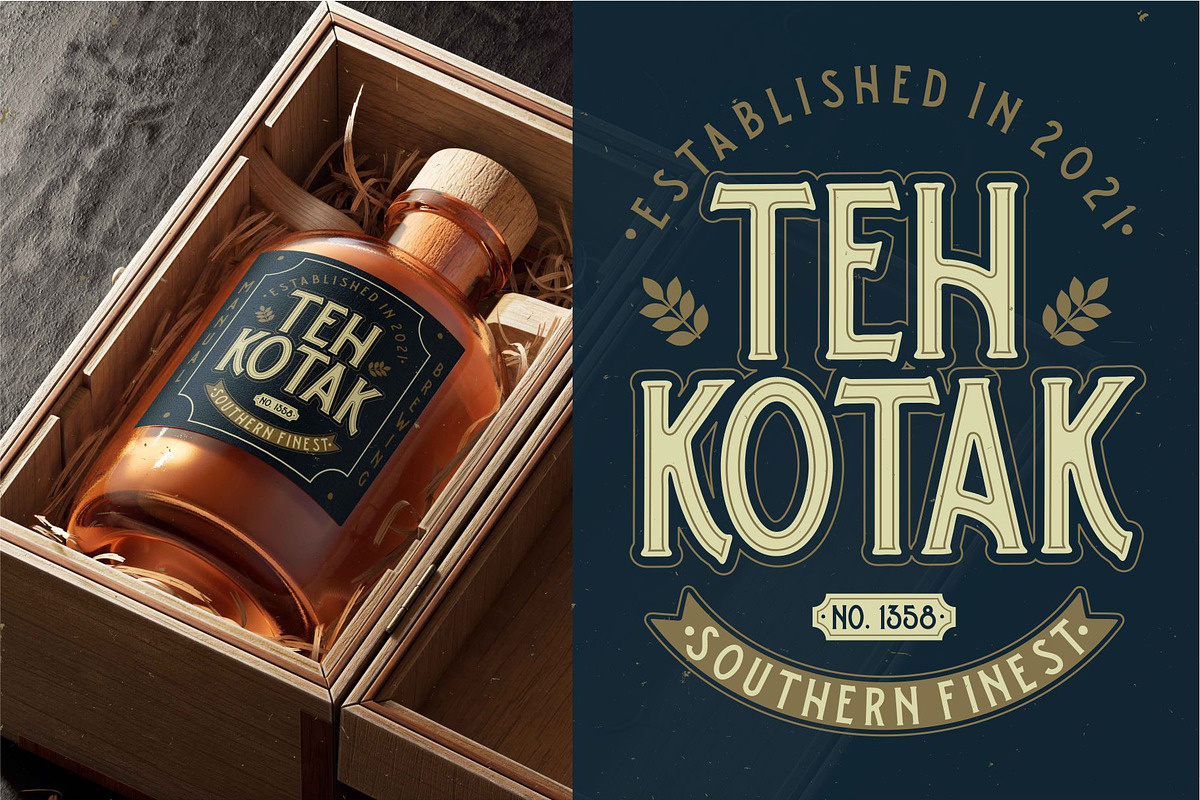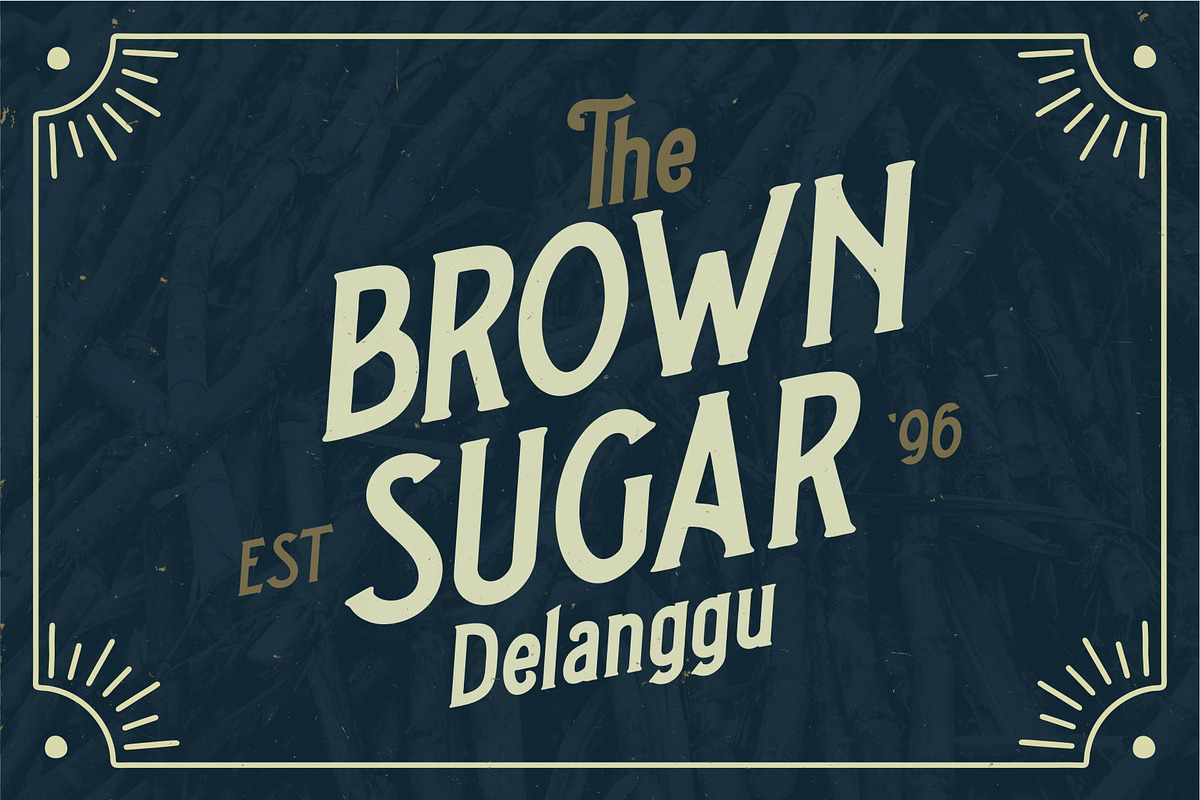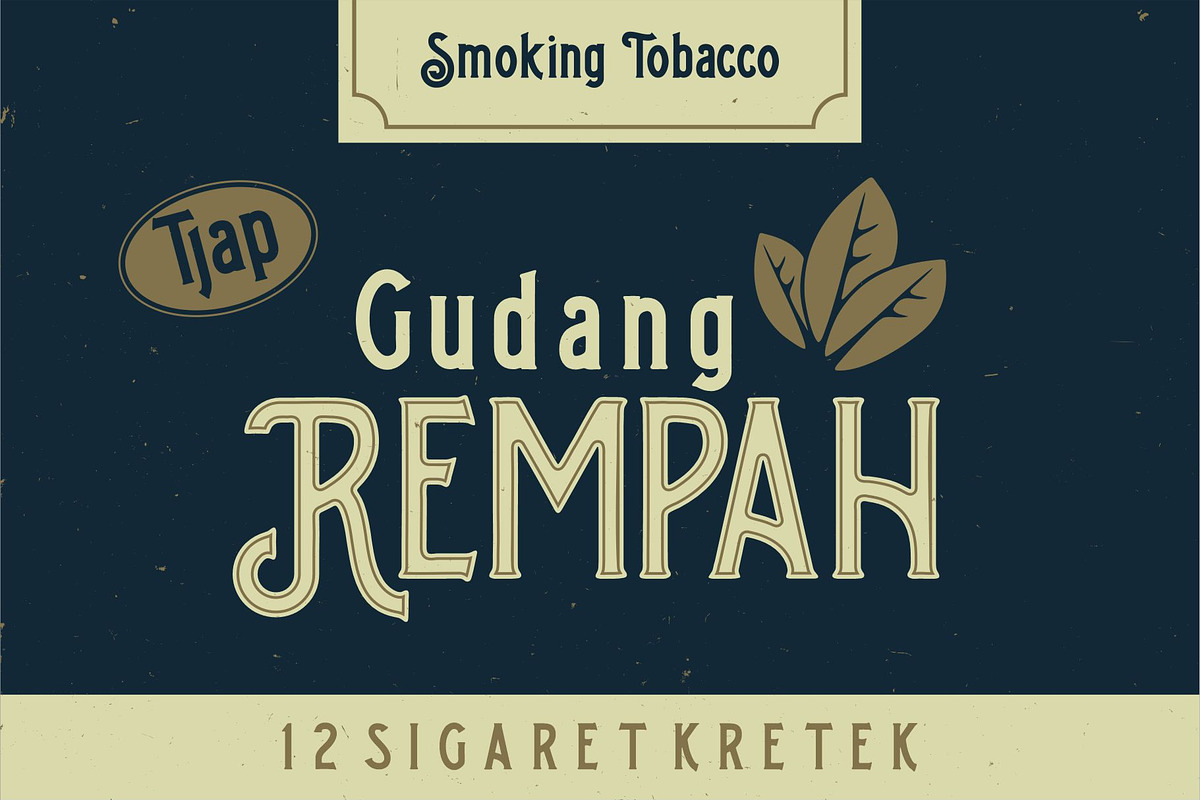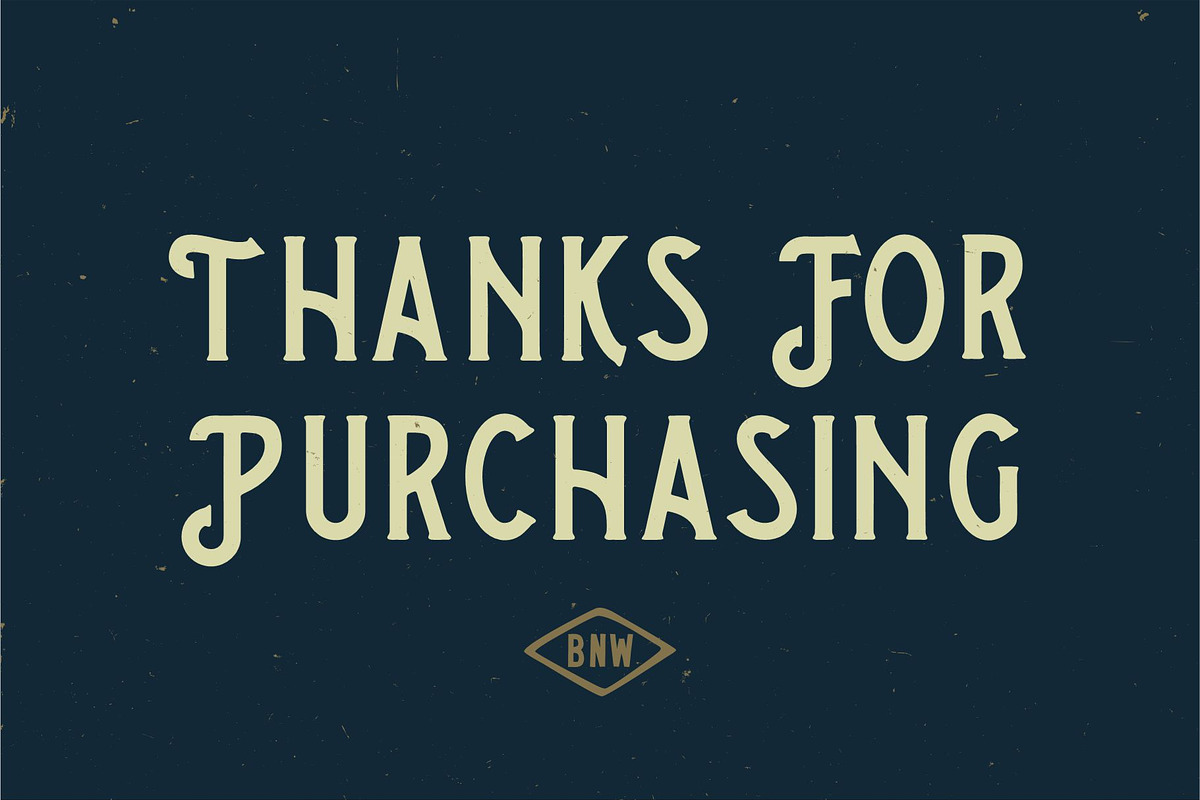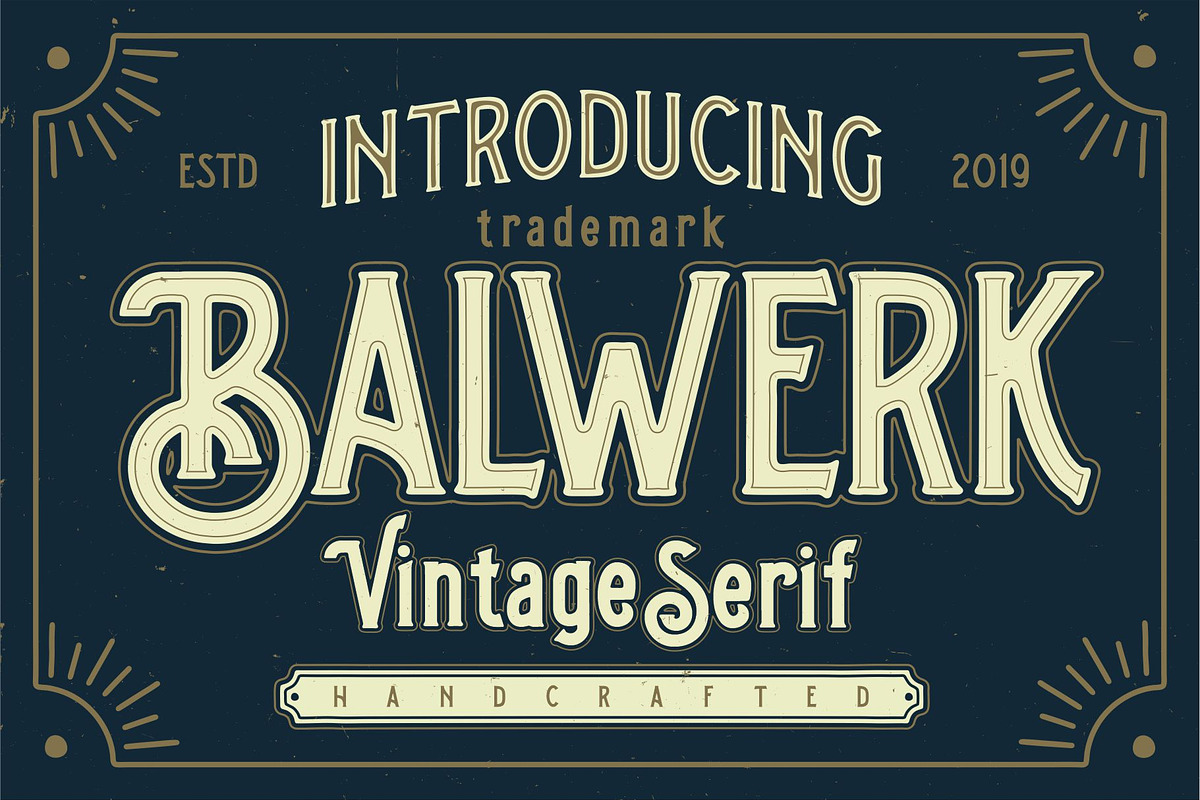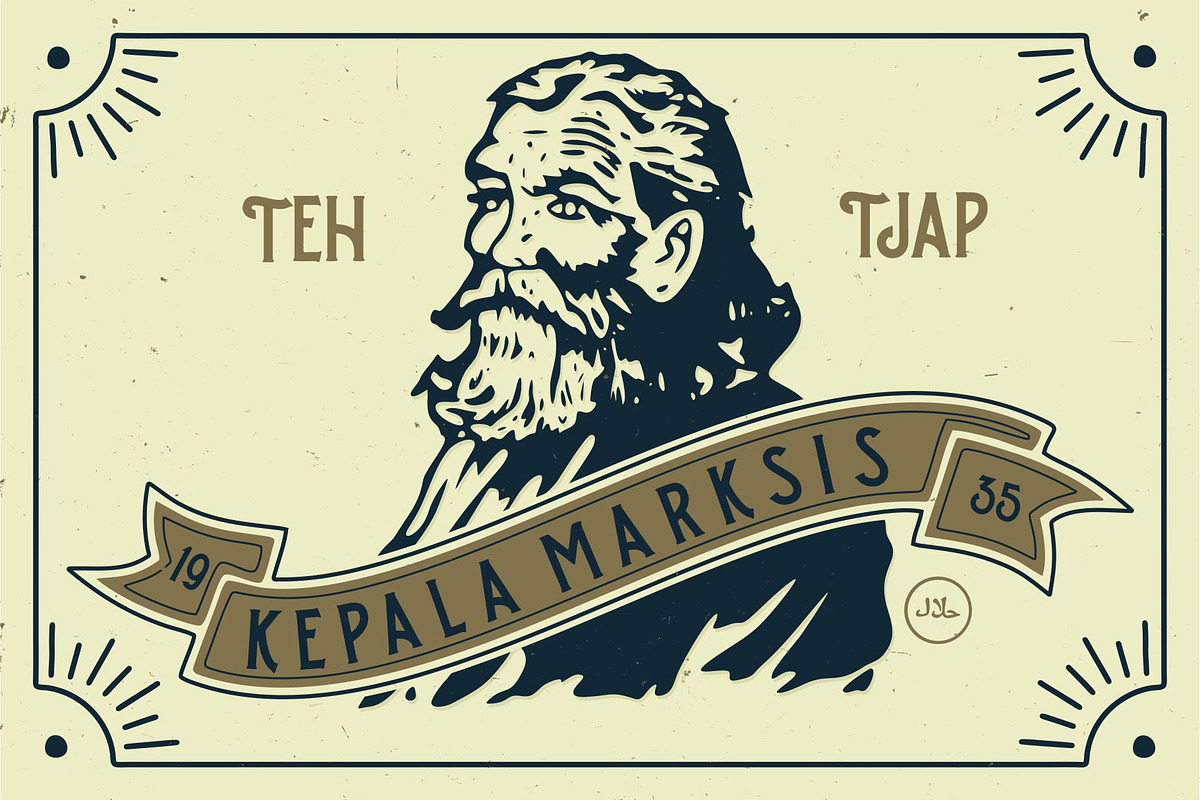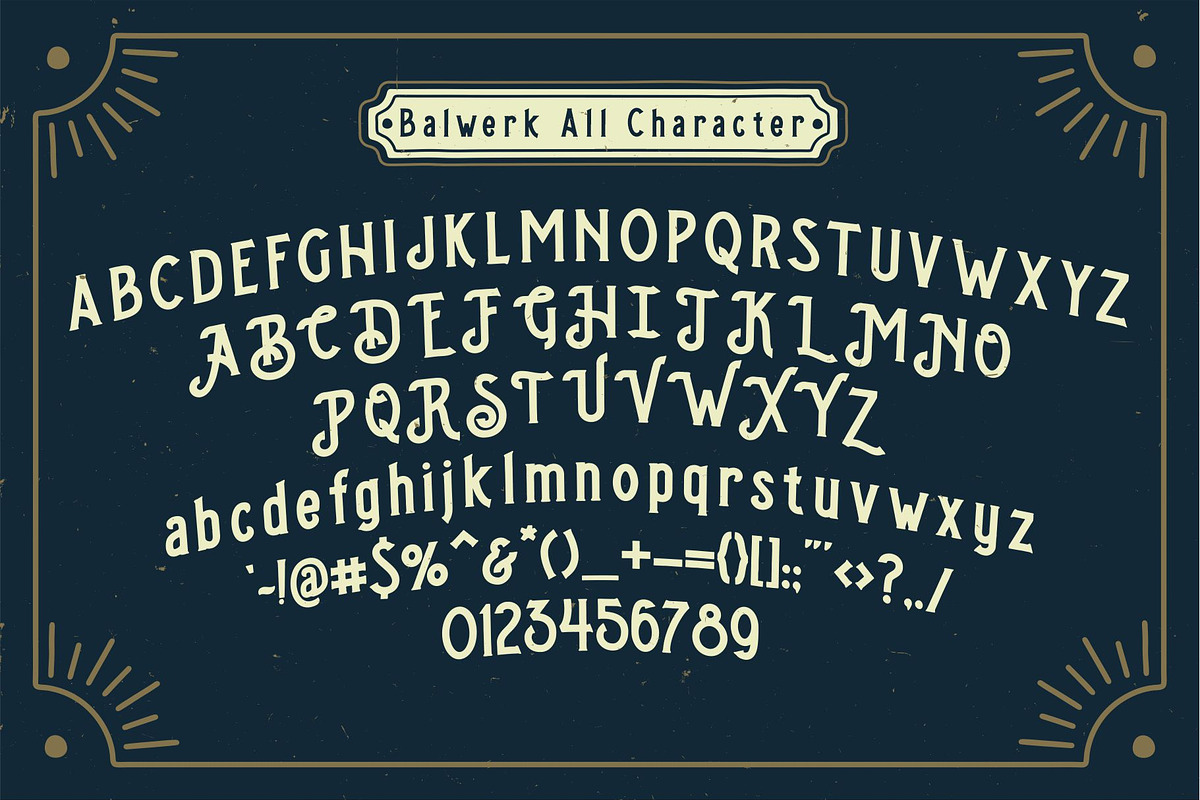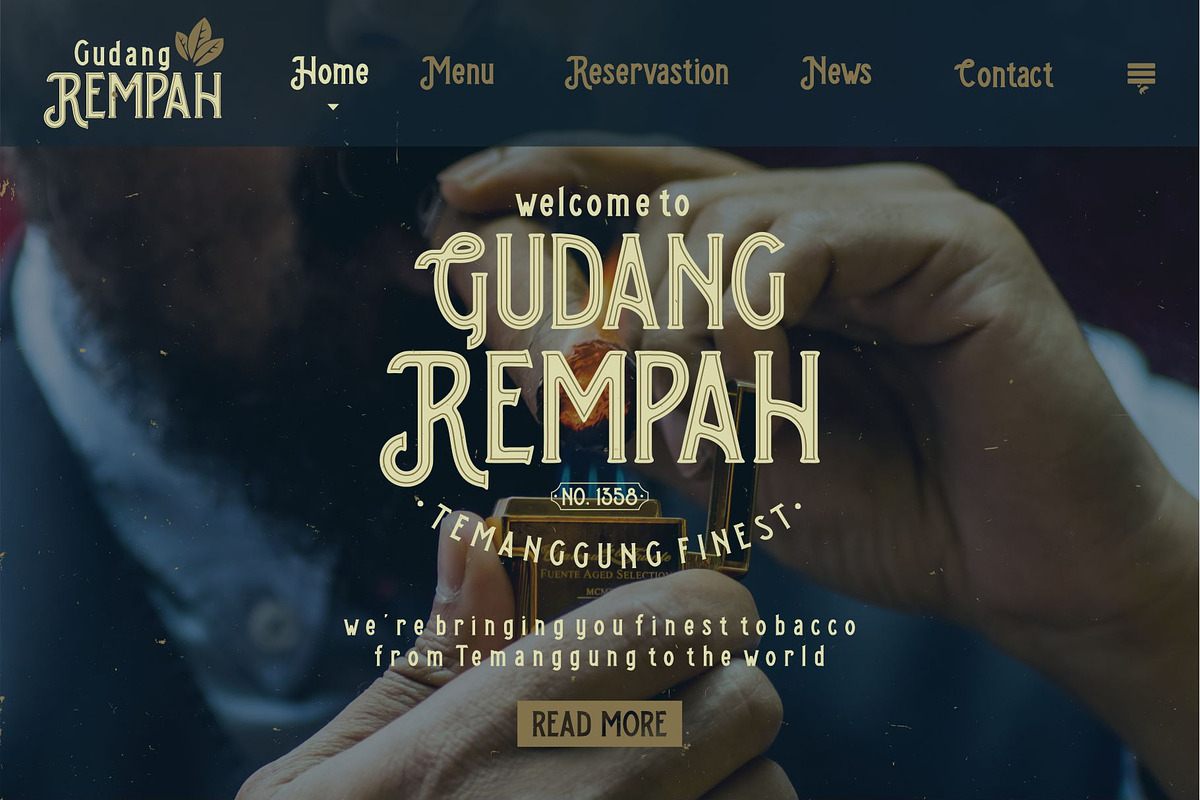
Balwerk - Vintage Serif
Balwerk - vintage serif font. Comes with many alternate - great for your new logo or branding project.
Great for retro or vintage style branding projects Thanks.